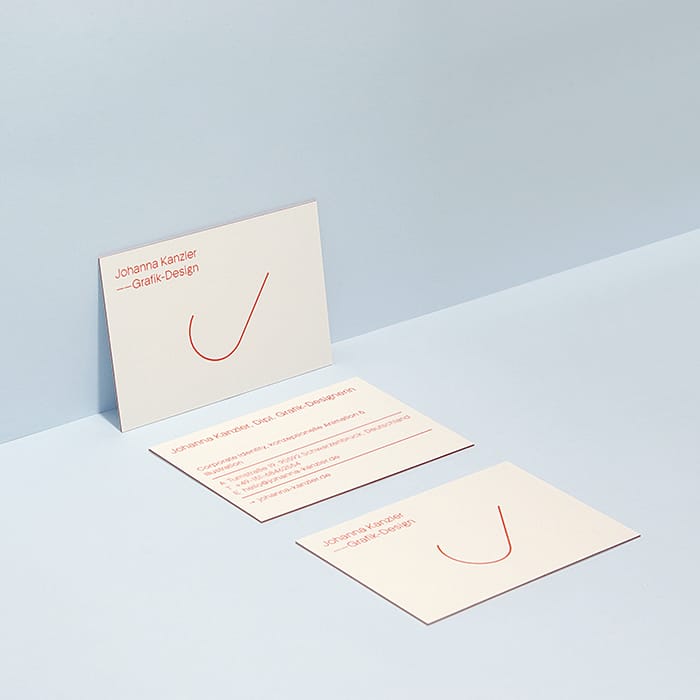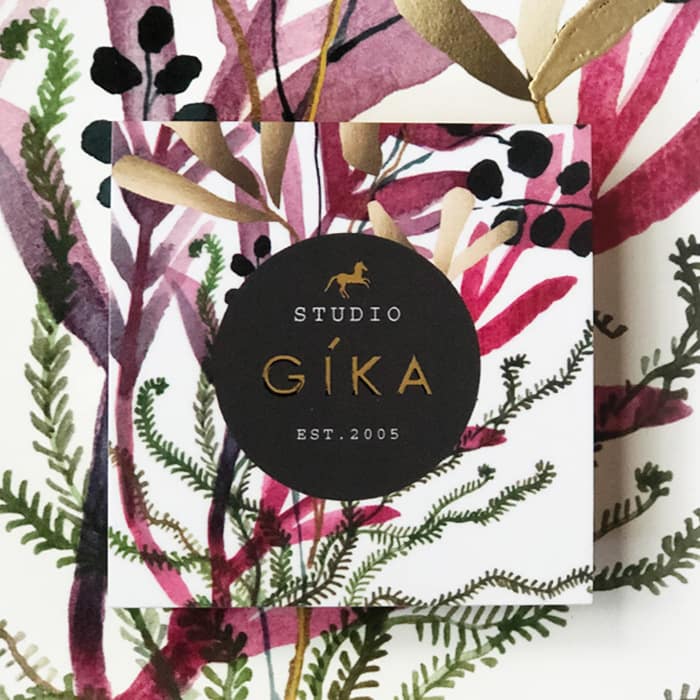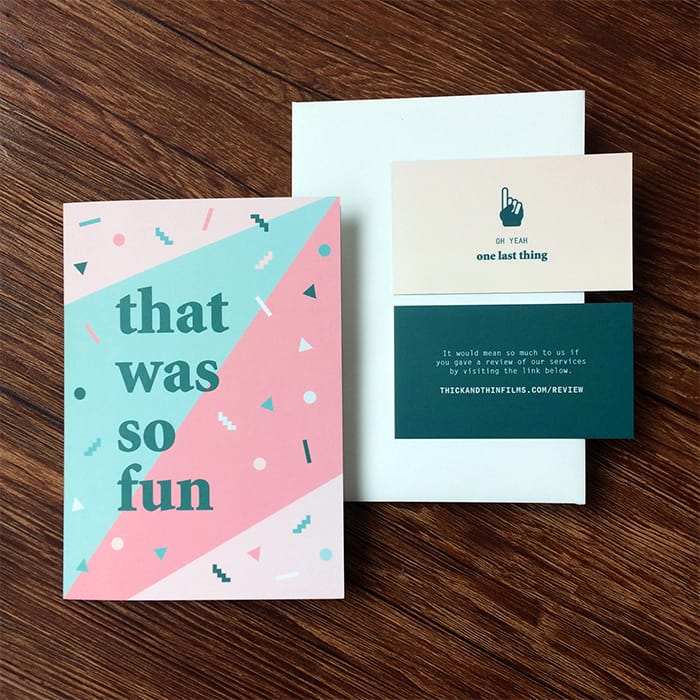
Got a taste for type? Join the club. Finding the perfect font for your brand is tough – especially with so many swoon-worthy serifs to choose from. Check out our roundup of the typefaces our creative community are loving.
“For my business cards, I chose the Super Soft Touch paper with Gold Foil finish and Rounded Corners for a super opulent, luxurious feel. I wanted them to be desirable to represent my products, and be something people want to keep. I used a very simple sans serif typeface – Europa-Bold – it’s clean and timeless. The letter spacing and type design is simple enough to work well with my often maximalist designs, while being weighty enough to be stamped or foiled and still easy to read at a small scale.”
“Since my paintings are mainly botanicals, I wanted to use a modern sans serif font with simplicity, so Acumin Pro wide was perfect for my branding—plus it looks great with the Courier Std font. With Printfinity, I can showcase multiple paintings, and because I use copper and gold accents in my work, the Gold Foil option was a great way to connect my cards to my branding. The overall effect is modern, yet elegant and luxurious.
After steadily building up her freelance projects, Germany-based graphic designer Joanna decided to spend time developing her own brand aesthetic. For her business cards, Joanna visualized the idea of functionality in graphic design, reducing the card’s content to minimalist typography, lines and tactile elements, but without a stiff and serious feeling.
“For my font, I chose Adrian Talbot’s Kamerik 205. I love the sense of structure it creates on the J and K of my initials. It has the perfect line weight to stand on Luxe uncoated paper, and still appears subtle, which I think suits my personality. To keep the design light and human, I introduced a bold red. As lines play a big role in my design elements, I matched this to the coloured seam that runs through the paper. This extra detail emphasizes the printed lines, and makes the card feel more like an object as opposed to just a card.”
“We like to keep our brand bold and clean. So our cards only carry necessary information,” Digital Director, Rich Evenhouse, tells us. “We felt that anything more would just be clutter. We don’t like clutter. To create that ‘thud factor’, we chose Luxe paper. We wanted something that makes a statement, and between the weight of the card and the pop of color in the middle, it does that for us. The font is modern and versatile, and we like to think we’re the same way. Like Montserrat, we can be bold and loud when we need to be, or subtle and refined when we don’t. Almost every time we hand our cards out, it stops people and often initiates conversation about our brand.”
“I’ve always been aware that I’m obsessively more organized than the average creative. So, when it came to selecting typefaces, I wanted something that reflected my own personality. The Freight suite had everything I was looking for: versatility, professionalism, clarity, and balance. I chose to print on Luxe paper because of its tactility when you hold it – I want recipients to link that sense of wonder and depth to my own brand identity. The reaction has been great! Lots of ‘oohs’ and ‘aahs’, which is amazing. We’re most critical of ourselves, so when you’ve worked really hard to design something you absolutely love, you know you’ve done a good job.”
Jhonny T is an independent creative, working towards his dream of becoming a clothing designer. With the ethos of less corporate more independent, Jhonny wants his label to blend “sporty chic” with timeless design to create ready to wear garments for men and women.
“I needed my cards to be a direct representation of me as a designer – I’m simple yet bold, and I tell stories. When it comes to typefaces, I always work to find the perfect marriage between contracting weights and cases of fonts. My style is versatile, and the consideration of the type on my design really gets that across. Sustainability is really important to me, so when I saw the eco-conscious choice of using Cotton stock, there was no question I’d go for it.”
When she’s not developing graphic design courses for college students, Monique is running her own graphic design studio, specializing in editorial design and typesetting for everything from print through to digital media. Her passion for lifestyle and fashion and the 2019 Pantone Color of the year inspired the design for her bold thank you cards.
“I love luxury fashion magazines and display fonts, so didones have always drawn me to their beauty. Salome (atipo foundry) is a fat didone, and lets me communicate that my brand is sophisticated and professional, without coming across as too lavish. I incorporated ellipsis marks in the Postcard design, because I always have so much more I want to say. I’m ‘old school’ when it comes to sending handwritten, heartfelt messages – it can change a person’s day when they open the mailbox. I want to show that I put care into every detail, and take time to ensure what I do makes someone feel good. By having strong, beautiful, feel-good cards, I accomplish this with every note.”
With a background in photography and media production, graphic design student Beth Nash has launched her own freelance career, producing alternative movie posters, illustrations and designs.
“I wanted to keep it simple and let my branding speak for itself. I went for Square Business Cards with a touch of Gold Foil to showcase my strong style and help me stand out to potential clients and agencies, plus I thought it would work well with my color palette. I’m glad I treated myself to foil – I love the cards and they’ve gone down a treat! I’ve recently had some industry interviews and they’ve been a great talking point. Everyone’s wanted to keep one (or two).”
Creative duo Jess Hain and Christina Newman founded their multidisciplinary design business in 2018 after deciding to join their creative skills and graphic design experience. Their Joyous Creative brand is all about playfulness and freedom to create. So when it came to creating a visual identity, they went for a fresh and bright look to communicate their ethos of originality and fun.
“Have you ever seen a logo with eyebrows? Now you have! We created a custom font design for our logo, featuring cutouts at the base of the ‘O’s to create ‘eyebrows’ that sit above the text. The fun and curiosity of the font coupled with a simple, Grotesk typeface below really captures our studio vibe. As a design agency, it’s important our business cards reflected the quality of work we produce, and these feel really special and solid. It’s quite hard to stand out in a sea of cards, but the Luxe finish definitely catches your eye.”
Wedding videography company, Thick and Thin Films add a personal touch for their clients by sending a small thank-you gift with every booking. “Nothing beats a handwritten card,” says co-owner Mary Betsy. “We mail another one when we deliver a couple’s video along with a small business card, printed with a request to leave a review.”
“For our Business Cards and Postcards, we used Minion Standard Black because we wanted a serif font to honor the tradition and elegance of weddings, then paired that with a lightweight monospace sans serif font – Letter Gothic Standard – to add a modern touch. We love how our cards make clients feel about our brand: consistent, thoughtful, and a little funky.”
Working as a graphic and web designer in Portland, Oregon, Ben Kinde works with an architectural aesthetic across elements of typography, color and space. His business cards were created to communicate authenticity and simplicity.
“For my typeface, I used Messina Serif in regular and italic. I love serif fonts for their human characteristics – their flare and imperfection. This felt like the right choice because it creates structural, geometric stability, while retaining its humanity. I went for the Cotton paper stock because it’s recycled, it’s soft and it ages beautifully. Over time, the identity of the product transforms for the user, and I think that’s pretty truthful of human experience.”
Megan is a contemporary visual and performing artist, inspired by the architecture, people and natural beauty of her home in San Francisco. To house her ever-expanding portfolio, her business cards are printed with a selection of her latest paintings and old favorites.
“I love that with Printfinity, I can include so many different examples of my work – sometimes people want my card just so they can have a ‘mini-painting!’ For my information, I used elegant fonts – Sackers Gothic, Neue Haas Light, and Helvetica Neue LT Pro Light. They each have a delicate, round finish to them, which I think looks beautifully clean, high end, and contemporary. I want my artwork to be presented in an elevated way, and for that to be reflected in all of my branding.”
Winter Studios is a husband and wife wedding videography team, with a passion for creating keepsakes that couples can enjoy for a lifetime. Before launching their own business, Nathan had previously been working as a graphic designer and videographer for a non-profit business.
“We had just renamed our business after our daughter, and needed a new logo. For the logo, I created a subtle ‘W’ shape with the trees, and matched it to the black seam of our Luxe cards. We used two contrasting but complementary typefaces, Archer and Gotham, to create a clean simple style. I think the modern fonts show people that our brand is contemporary and stylish, and our cards shout professionalism.”